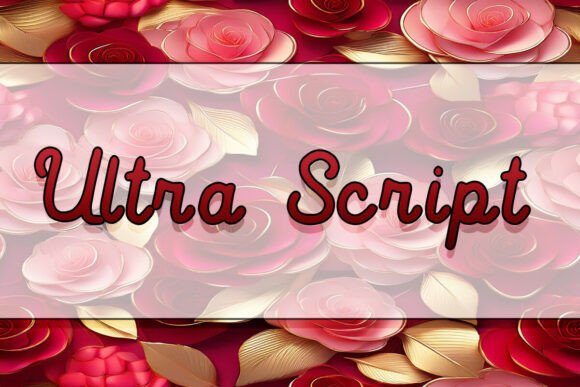
Ultra Script: A Designer's Guide to This Versatile Script Font
More Than Just a Pretty Script
When you first encounter Ultra Script, it’s easy to be captivated by its immediate elegance. As a script font, it carries the fluid, connected strokes of traditional calligraphy, but with a distinctly modern sensibility. The letterforms feel both spontaneous and meticulously crafted, a balance that’s difficult to achieve. This isn’t a font that tries to mimic a hurried scrawl; instead, it presents a refined, confident cursive that feels personal yet polished. Its personality is one of approachable sophistication—it whispers of handwritten notes from a trusted friend, but one who happens to have impeccable taste.
For designers and creators, understanding a font's core character is the first step to using it effectively. Ultra Script’s visual appeal lies in its moderate contrast and smooth, flowing connections. It avoids the extremes of being overly ornate, which can sacrifice readability, or too casual, which can undermine professionalism. This makes it a remarkably versatile display font, capable of carrying headlines and short-form text where a touch of human warmth is desired. Think of it as a bridge between the formal precision of a serif font and the stark simplicity of a sans serif font, offering a unique third way for your typography.
Where Ultra Script Truly Shines: Practical Applications
The true test of any creative font is its performance across different mediums. Ultra Script excels in scenarios where you need to make an immediate emotional connection or convey a sense of care and craftsmanship. In logo design and brand identity work, it’s a powerful tool for boutique businesses, lifestyle brands, artisan products, and personal services. A logo set in Ultra Script can instantly suggest elegance, creativity, and a hands-on approach, helping a small business stand out in a crowded market.
Beyond branding, its applications in editorial design and packaging design are extensive. Imagine it gracing the cover of a wedding magazine, the title of a cookbook chapter, or the label of a small-batch candle. It brings a layer of authenticity and luxury to print materials. For digital creators, this premium font is equally at home. It can elevate social media graphics with quotes that feel personal and shareable, add a sophisticated flair to blog headers, or make a call-to-action in an email newsletter feel more inviting. For crafters using tools like Cricut, Ultra Script translates beautifully to physical projects—from custom tote bags and decals to intricate greeting card designs, ensuring your handmade creations look professionally designed.
Strategic Typography: Pairing and Readability
Using a script font like Ultra Script effectively requires a bit of strategic thinking. Its strength is in short bursts of expressive text. For maximum impact and readability, it’s rarely the right choice for body copy. Instead, pair it thoughtfully. A classic and reliable approach is to use Ultra Script for headlines, subheads, or pull quotes, and then set your longer paragraphs in a clean, neutral sans serif font. This creates a clear visual hierarchy, guiding the reader’s eye and preventing visual fatigue. The contrast between the expressive, flowing script and the orderly sans serif makes both typefaces more interesting.
Before committing to Ultra Script for a project, test it in context. How does it look at the specific size you’ll be using? Does it remain legible when printed on textured paper or viewed on a mobile screen? Check the font package for alternate characters or ligatures—these are the special stylistic variations that can add even more uniqueness to your lettering. Most importantly, if you plan to use it for commercial purposes—like on client work, merchandise for sale, or in a business logo—ensure you understand the commercial font license. A proper license is a fundamental part of professional practice, protecting both you and the font’s creator.
Making the Most of Your Design Assets
Ultimately, Ultra Script is more than just another item in your toolkit of design assets. It’s a stylistic voice. When chosen for the right project, it doesn’t just display words; it communicates a mood, tells a story, and builds a connection with your audience. Whether you’re crafting a brand identity for a new client, designing a product label, or creating a heartfelt invitation, this typeface offers a reliable way to inject personality and sophistication into your work. Its blend of modern typography principles with classic script elegance makes it a enduringly useful font for any designer, marketer, or creator looking to make their work resonate on a more human level.